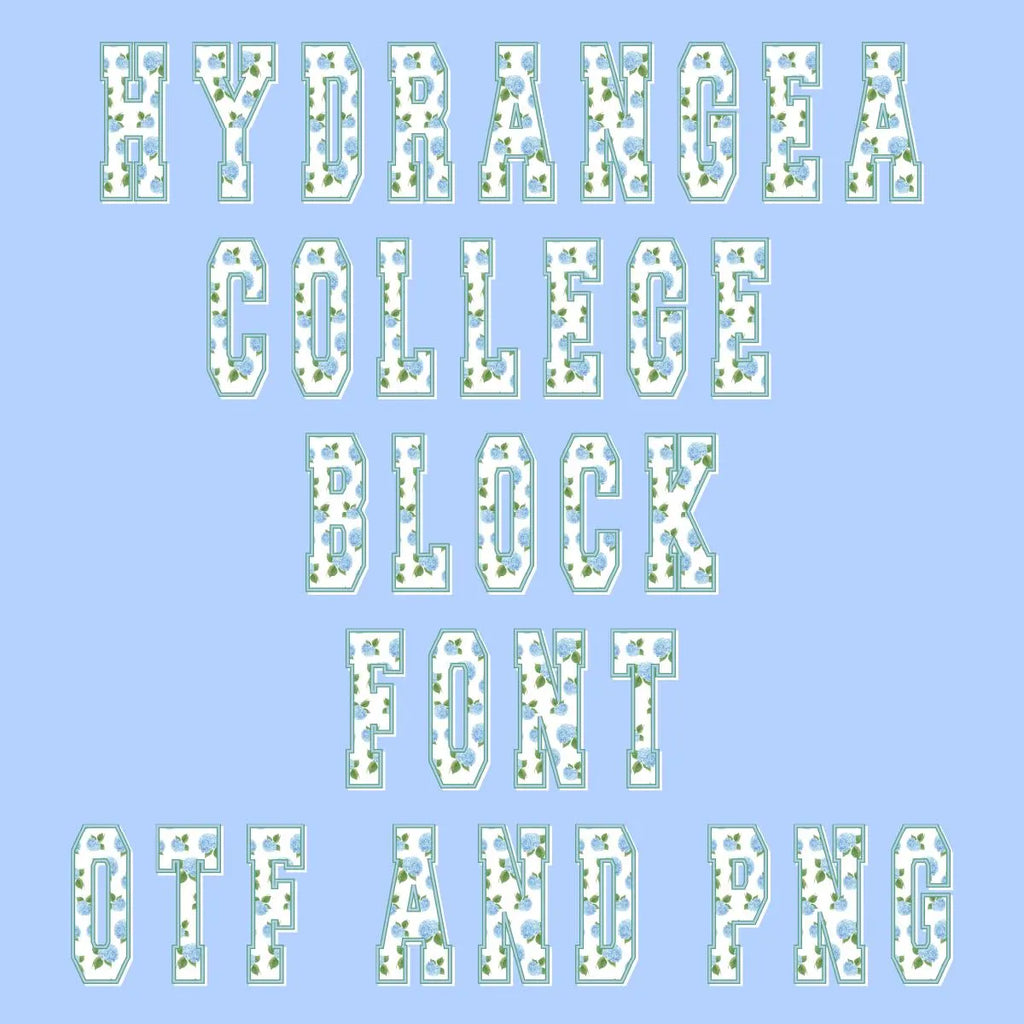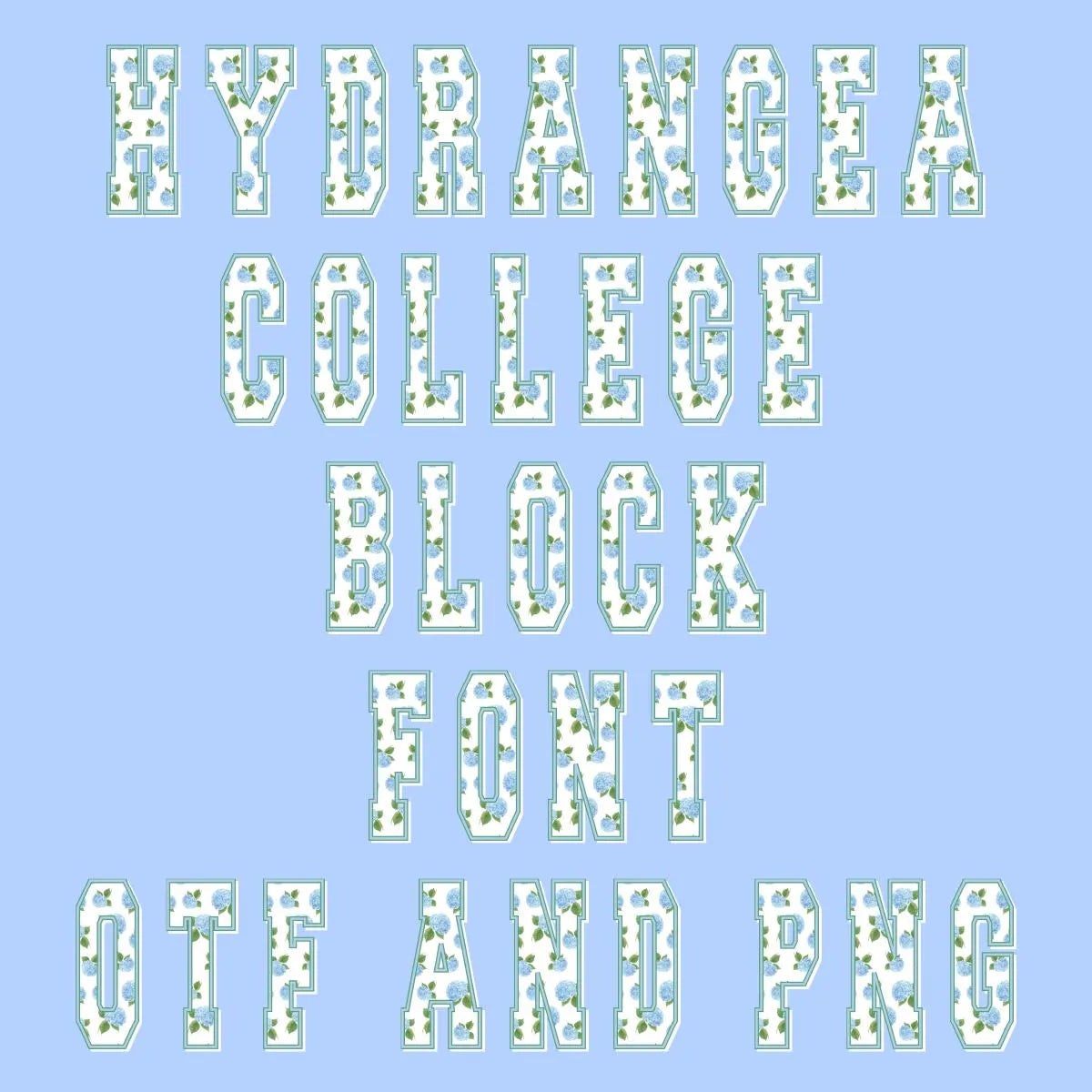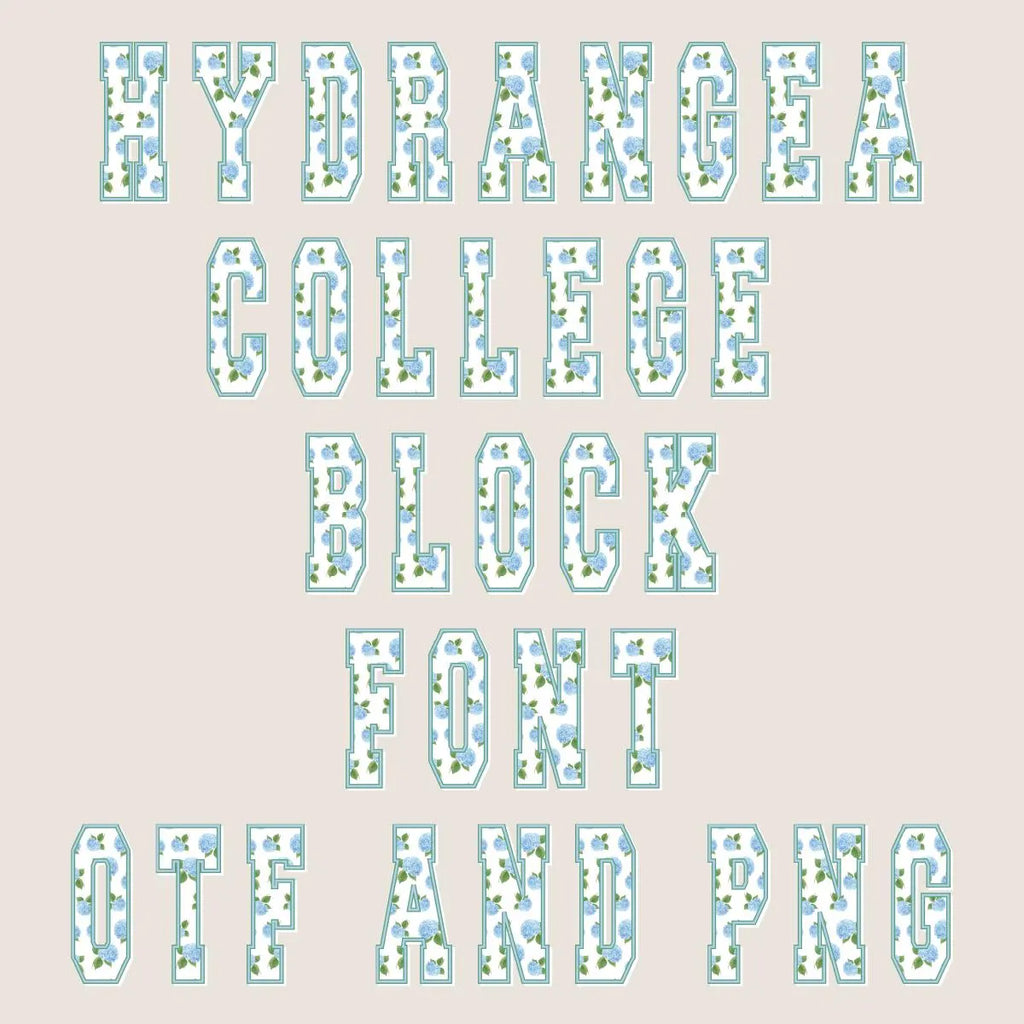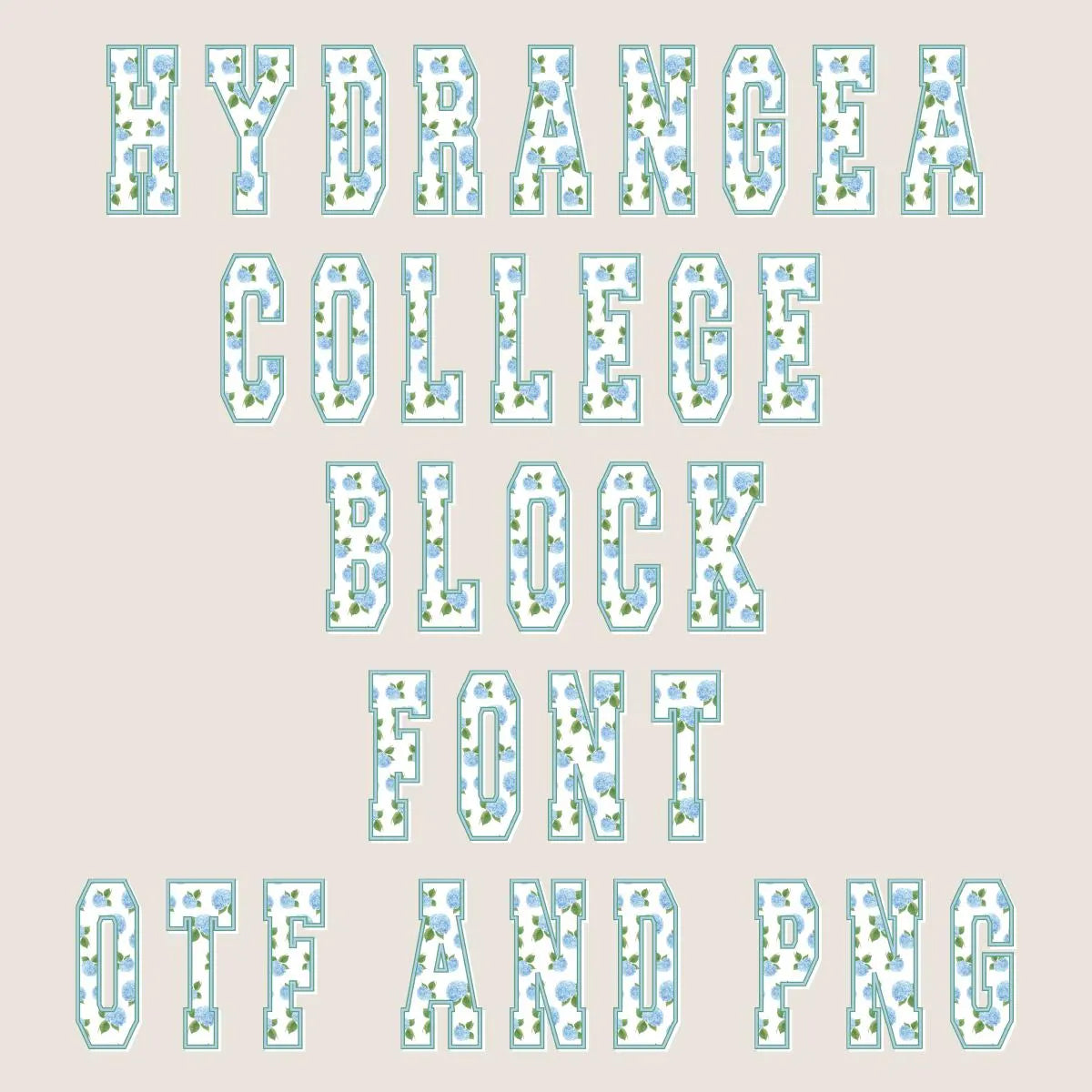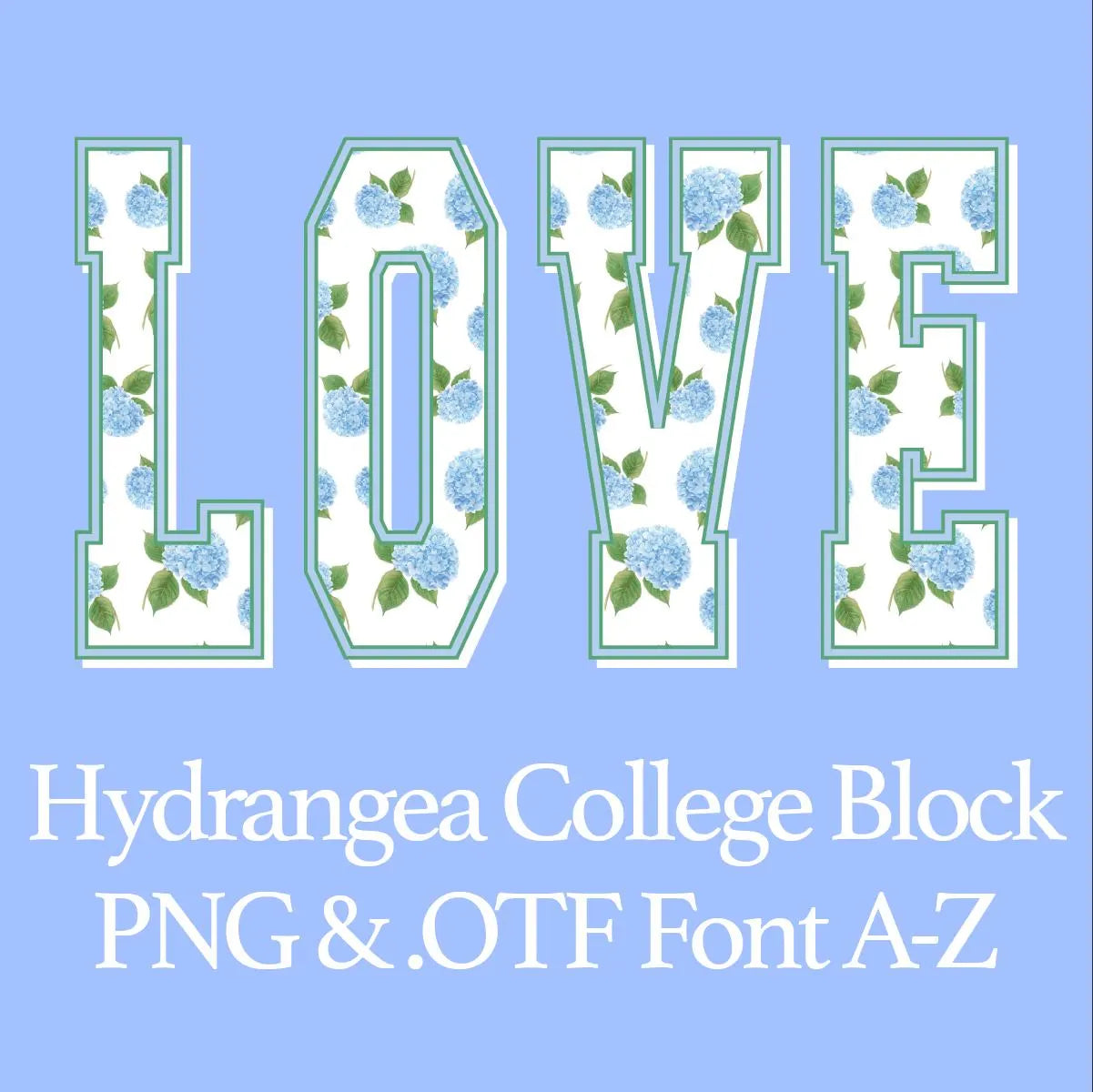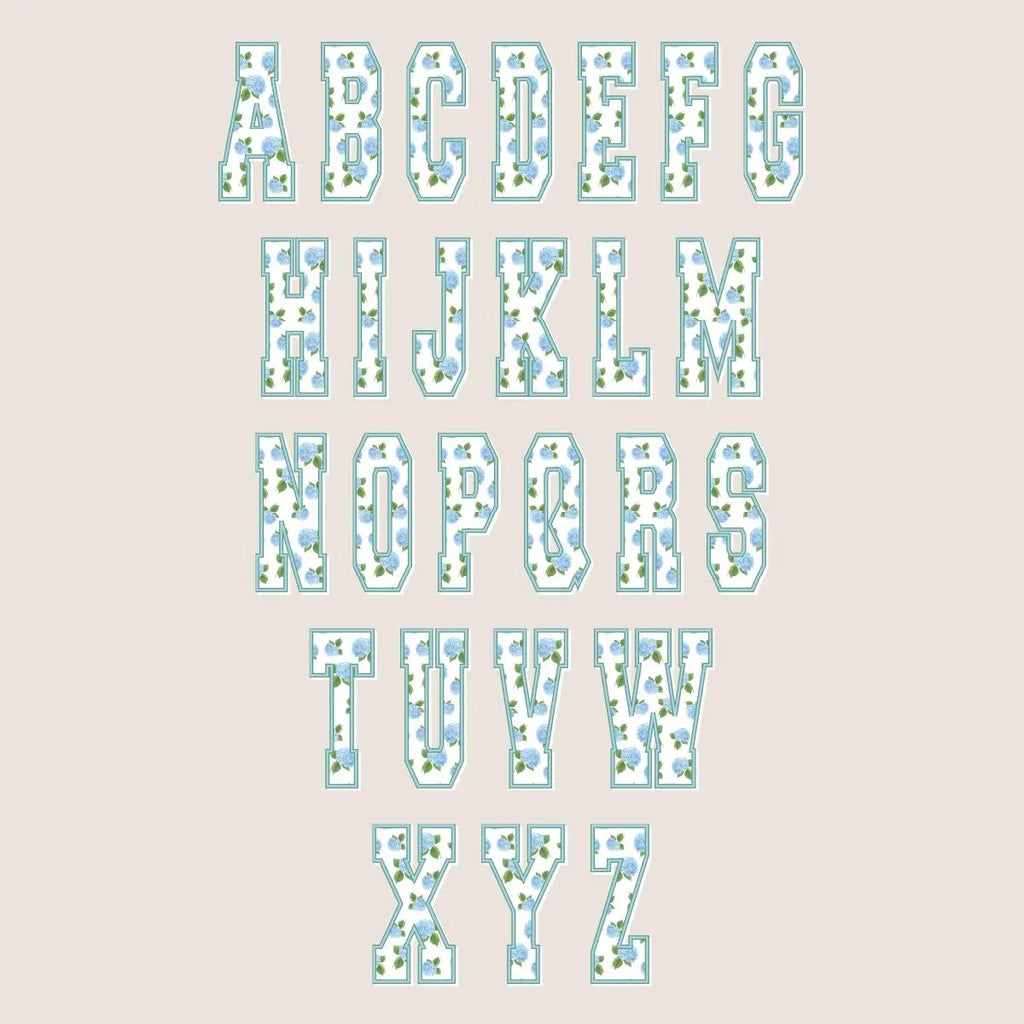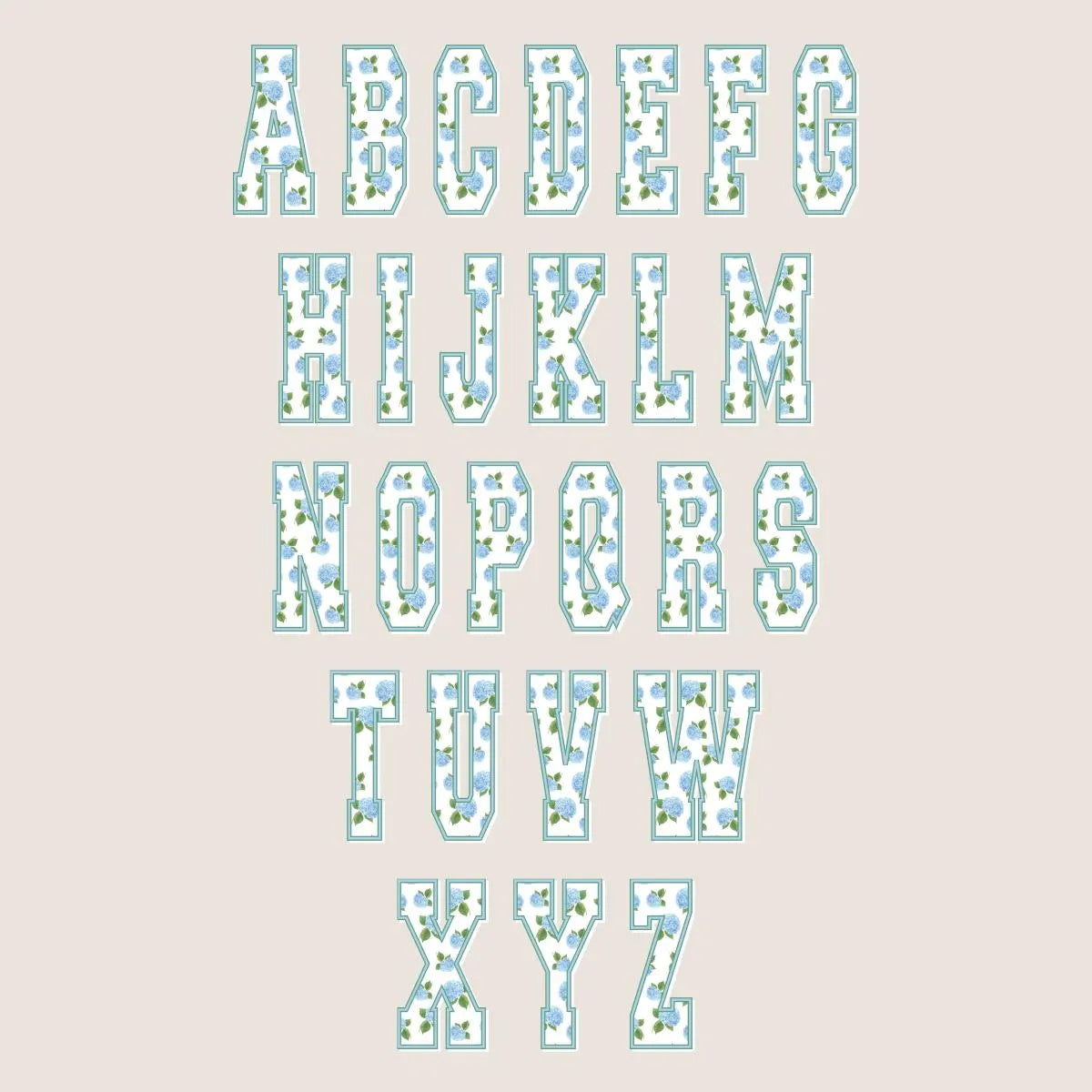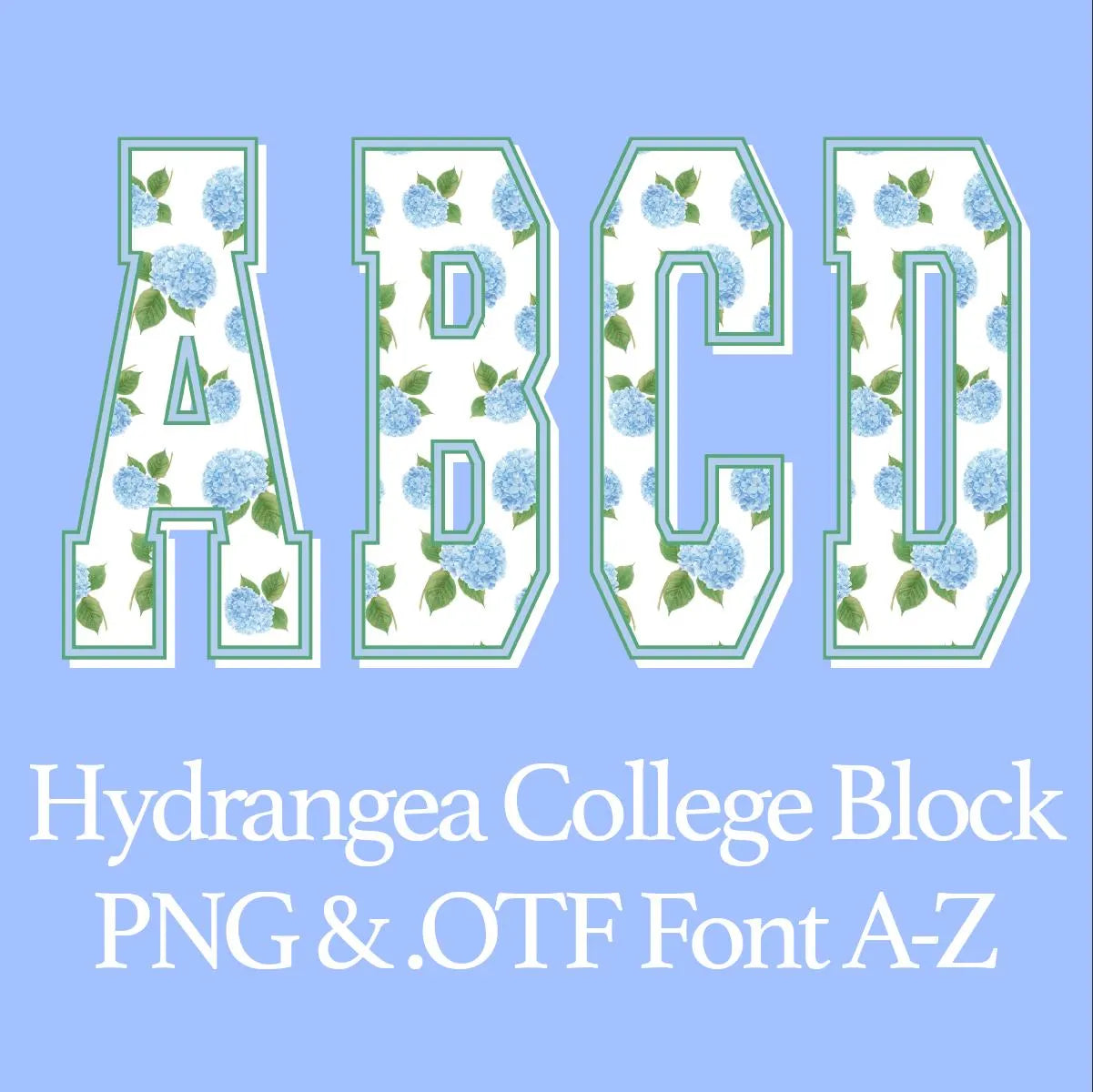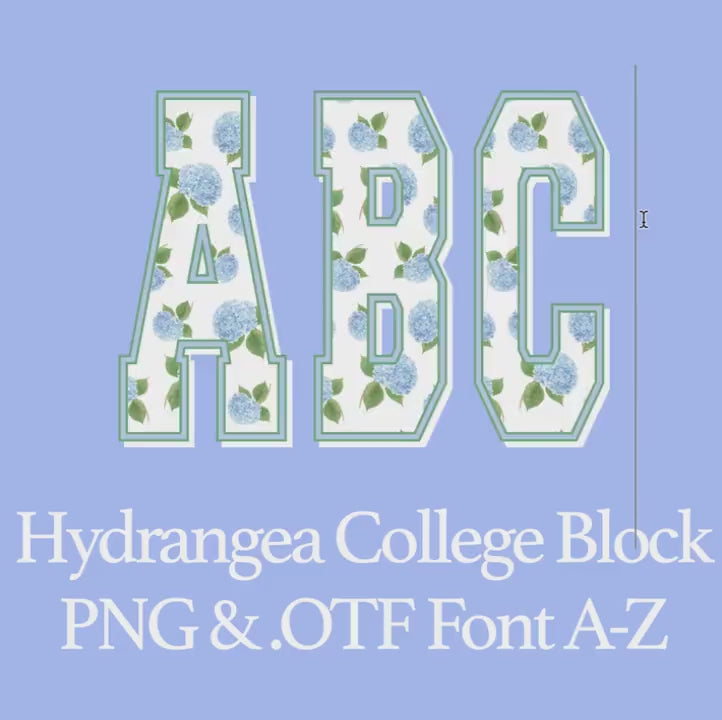
Hydrangea Patterned College Block Font: .otf (open type font) + all 26 letters in png format
Hydrangea Varsity Style College Block Font for PRINTING. This is not an embroidery file.